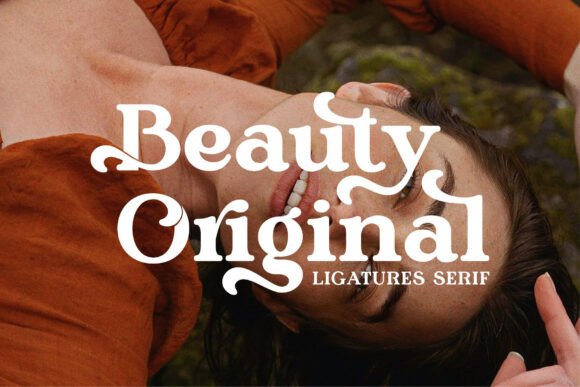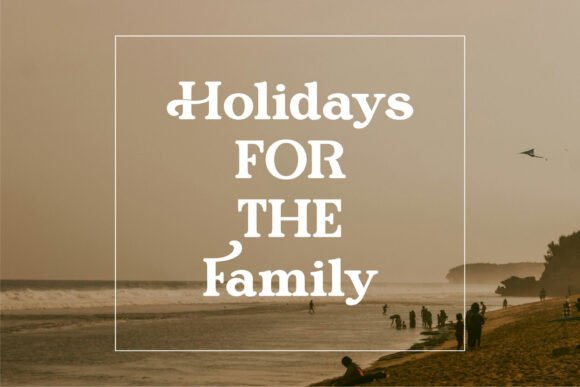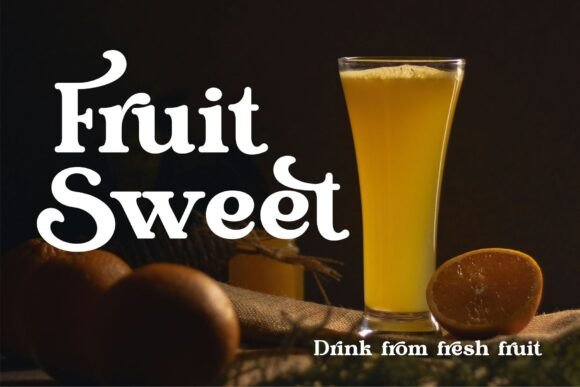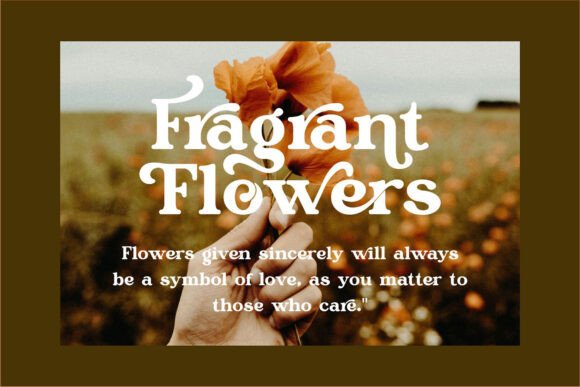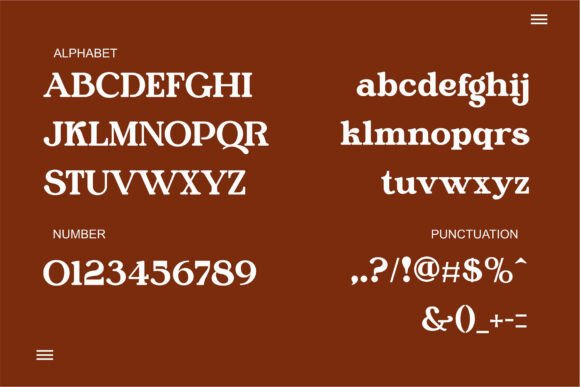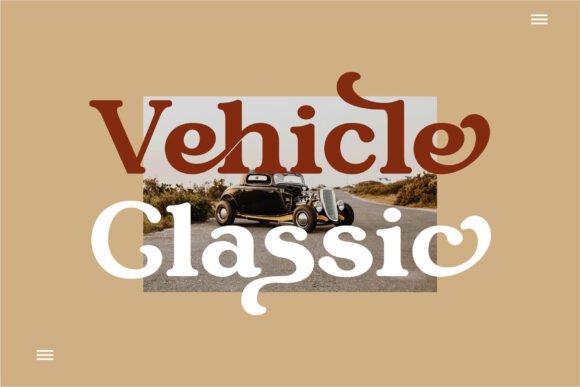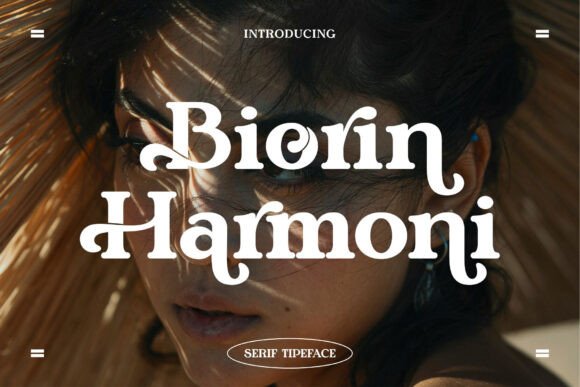
Biorin Harmoni Font: A Timeless Classic with a Retro Twist
In the world of typography, fonts play a crucial role in conveying the tone and personality of a brand or design. For designers and crafters looking to add a touch of elegance and uniqueness to their work, Biorin Harmoni is a display serif font that delivers a classic retro feel with strength and boldness. Characterized by striking bold letters, Biorin Harmoni exudes sophistication and charm in every detail.
The Retro-Inspired Design of Biorin Harmoni
Biorin Harmoni’s retro-inspired design is a nod to the classic typography of the past. The font’s bold and striking letters evoke a sense of nostalgia, transporting us back to an era of timeless elegance and refinement. The design of Biorin Harmoni is characterized by its strong and confident lines, which convey a sense of charm and sophistication. Whether you’re working on a branding project, a craft, or a design, Biorin Harmoni is the perfect choice for those looking to add a touch of vintage glamour to their work.
Elegance and Uniqueness in Every Detail
One of the standout features of Biorin Harmoni is its unique and elegant design. The font’s serif details are carefully crafted to add a touch of refinement and sophistication to any design. The letters are bold and striking, yet delicate and nuanced, making Biorin Harmoni a versatile font that can be used in a variety of contexts. Whether you’re creating a logo, a poster, or a social media graphic, Biorin Harmoni is sure to make a statement.
The Benefits of Using Biorin Harmoni
So why choose Biorin Harmoni for your design or crafting project? Here are just a few benefits of using this amazing font:
- Elegance and sophistication: Biorin Harmoni adds a touch of classic elegance and refinement to any design.
- Uniqueness: The font’s bold and striking letters ensure that your design stands out from the crowd.
- Versatility: Biorin Harmoni can be used in a variety of contexts, from branding and advertising to crafting and DIY projects.
- Retro charm: The font’s retro-inspired design evokes a sense of nostalgia and vintage glamour.
How to Use Biorin Harmoni in Your Design or Crafting Project
Using Biorin Harmoni in your design or crafting project is easy. Here are a few tips to get you started:
- Pair with complementary fonts: Biorin Harmoni looks great when paired with clean and simple fonts, such as sans-serif fonts.
- Experiment with colors: The font’s bold and striking letters look great in a variety of colors, from bold and bright to muted and pastel.
- Use in headlines and titles: Biorin Harmoni is perfect for use in headlines and titles, where its bold and striking letters can make a big impact.
In conclusion, Biorin Harmoni is a display serif font that delivers a classic retro feel with strength and boldness. With its elegant and unique design, Biorin Harmoni is the perfect choice for designers and crafters looking to add a touch of sophistication and charm to their work. Whether you’re working on a branding project, a craft, or a design, Biorin Harmoni is sure to make a statement. So why not give it a try and see the difference it can make in your next project?